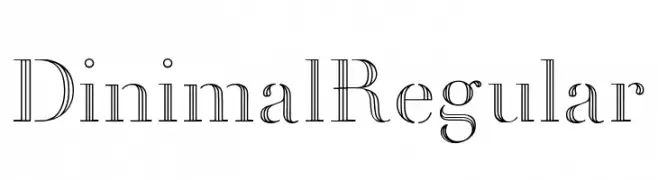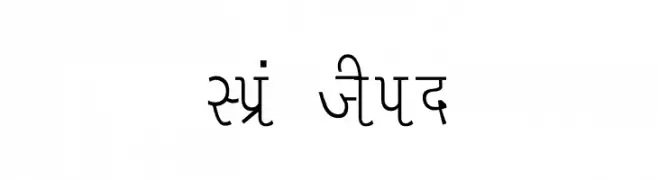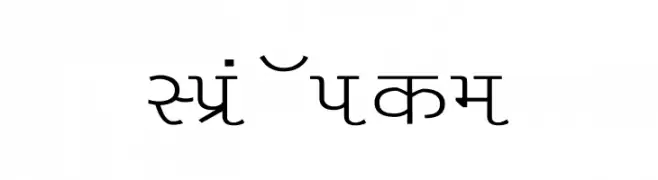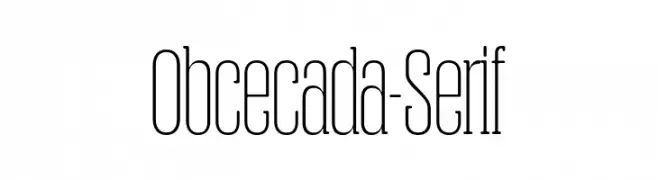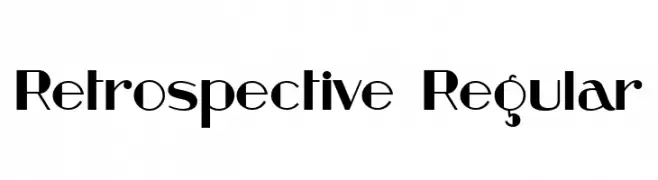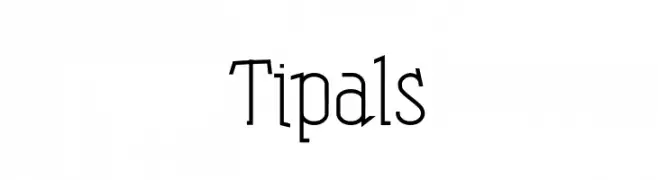
A bold, condensed font with high contrast and sharp serifs, blending modern and classic styles.
A decorative font with ornate uppercase and elegant lowercase letters, blending traditional and modern styles.
A hand-drawn, playful font with irregular strokes and a vintage-modern blend.
A modern, angular font with a blend of geometric and organic elements.
A bold, high-contrast font with a modern and vintage blend.
A bold, geometric font blending modern and retro styles.